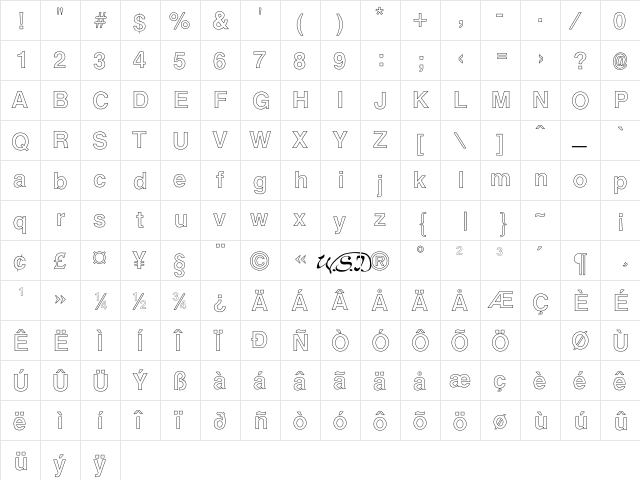
Arena Outline Regular Font Preview
Arena Outline Regular
Design Context for Arena Outline Typeface
Arena Outline brings ornamental detail and strong personality to headlines and identities, where visual impact matters more than quiet functionality.
Font Pairing: Pair with a clean neutral sans-serif for body copy to let Arena Outline's character lead without overwhelming the composition.
Pro Tip: Treat Arena Outline as the centrepiece of your typographic hierarchy. One strong heading set in a decorative face can carry an entire layout.